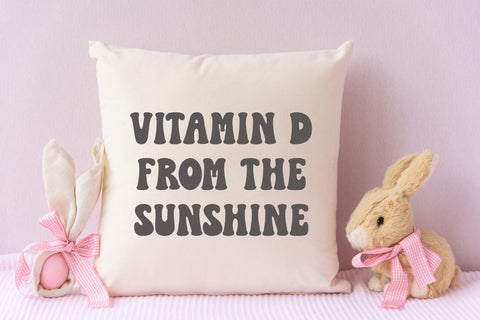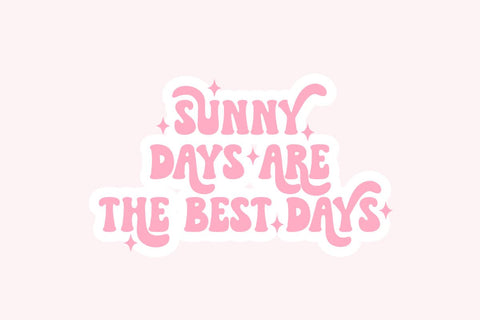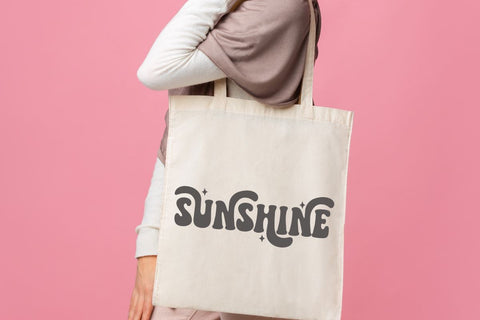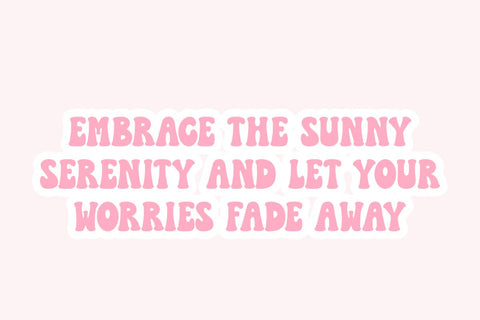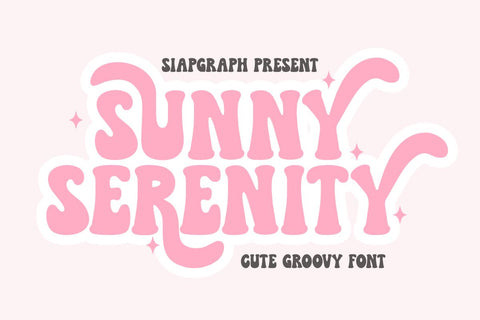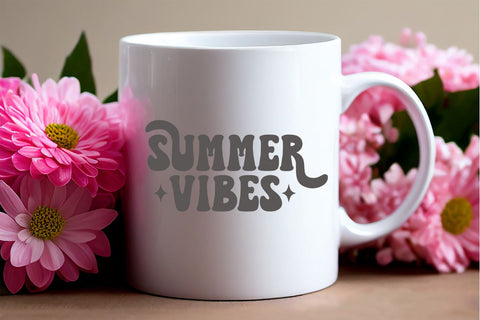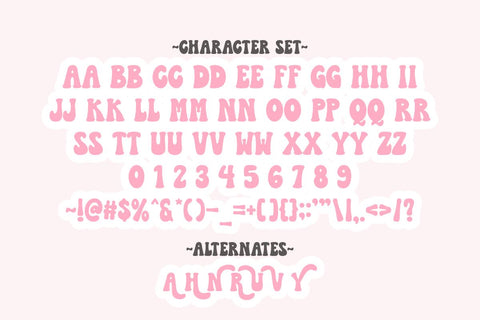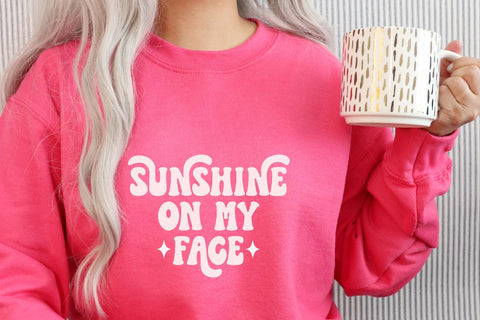
Sunny Serenity - Cute Groovy Font
Sunny Serenity is a cute, groovy font that brings a fun, retro vibe to your creative projects. Perfect for Cricut crafts, greeting cards, retro posters, party invitations, and DIY decorations, this font adds a playful yet stylish flair to any design. Its bold, wavy strokes and cheerful charm make it ideal for projects that need a lively, nostalgic touch